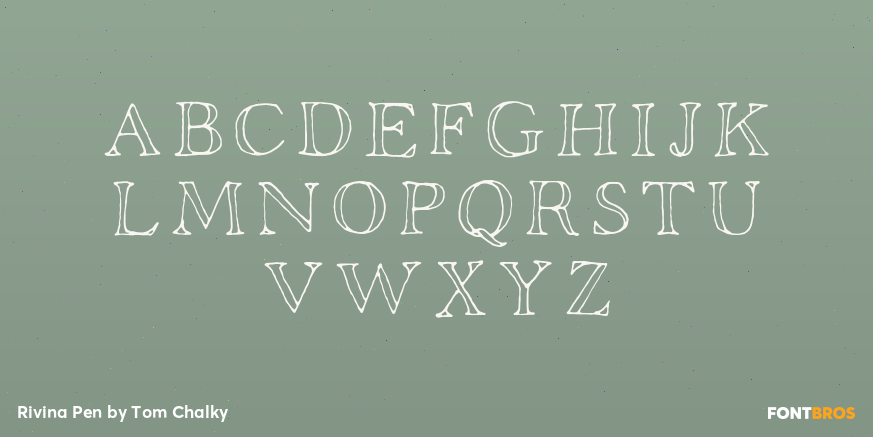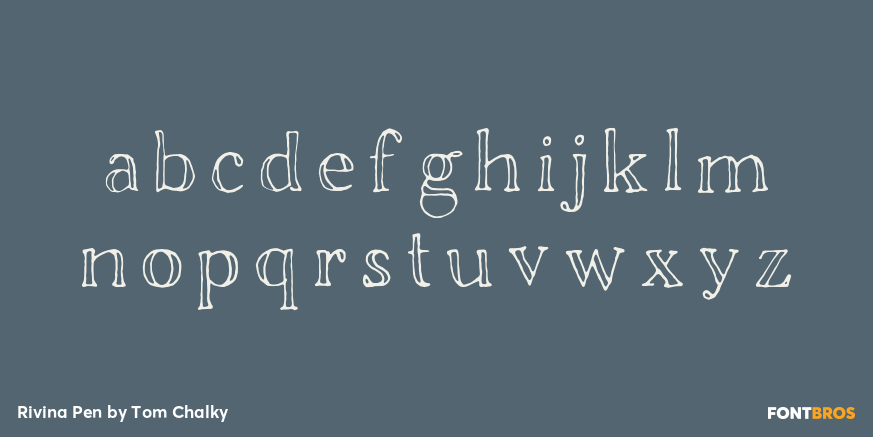
Rivina Pen
Font Family by Tom Chalky
These creative and playful hand drawn serifs were inspired by the do it yourself movement that has exploded in recent years. What with the overload of all things virtual, this change of direction was inevitable, and one that I accept with open arms.
The spacing between the letters of the outline fonts and their solid siblings had to be different in order for them to work successfully when independent, so perfect alignment when layering the fonts is not possible. However, this was no accident, the outcome of the partnership can be both creative, unique and great fun to work with!